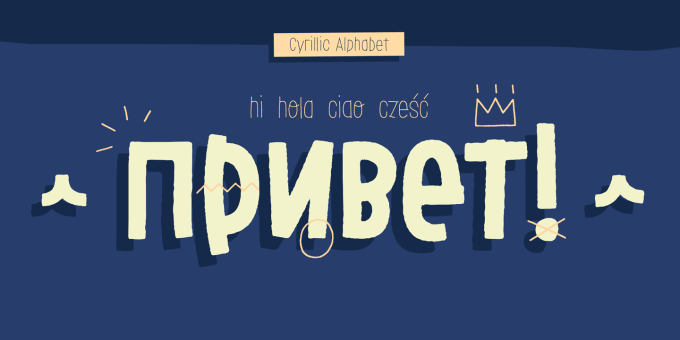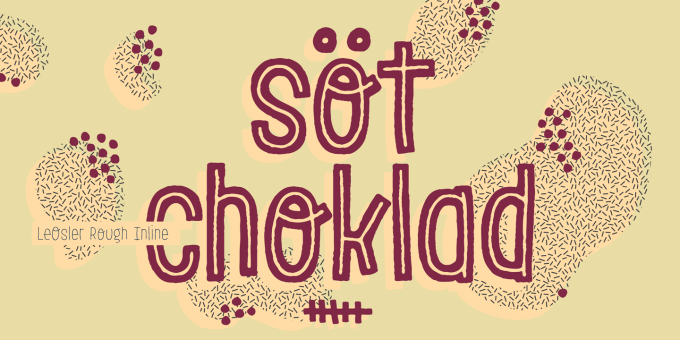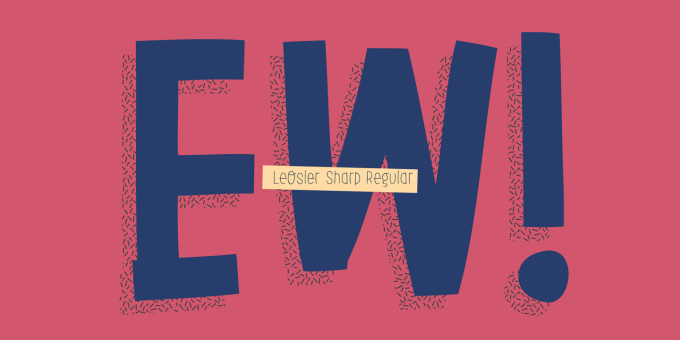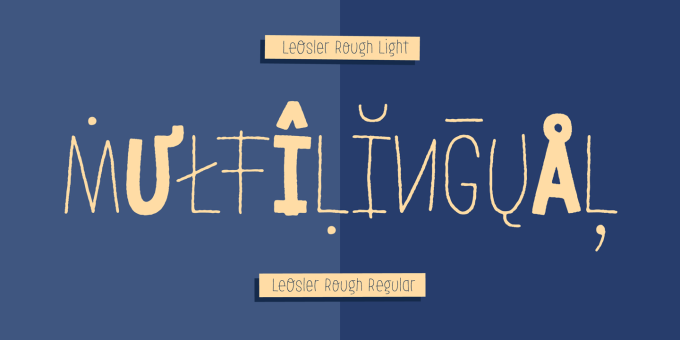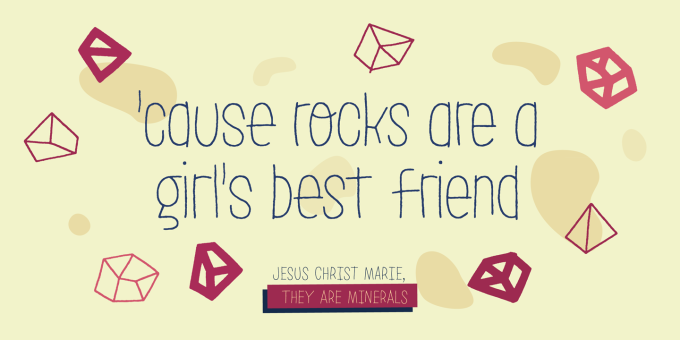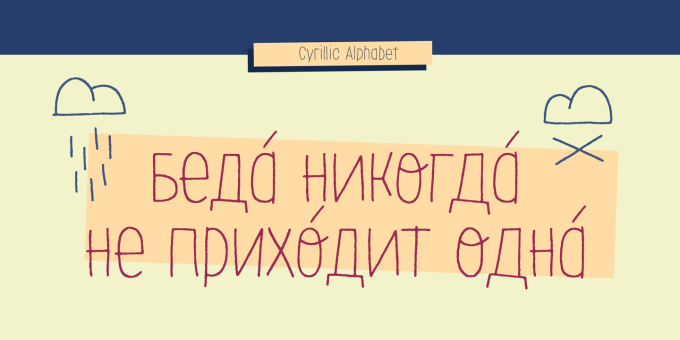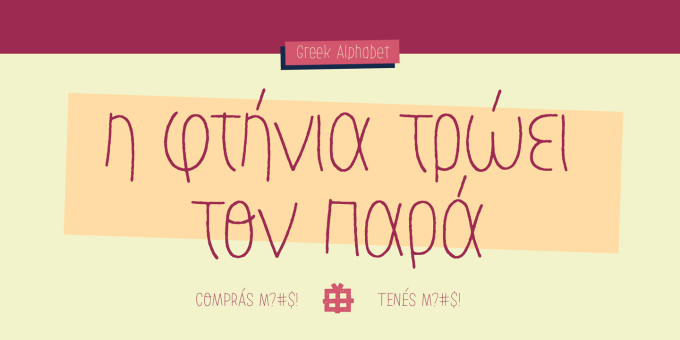
LeOsler
LeOsler is a decorative, fun, handwritten font that includes the Latin, Greek and Cyrillic alphabets, and can be used in a wide range of languages, including English, Spanish, Italian, French, German, Polish, Czech, Vietnamese, Russian, Greek, among many others.
Its OpenType features include ligatures for all repeated characters in upper & lowercase, contextual alternates for all supported alphabets, 4 ampersand alternates, scientific superior/inferior figures, fractions, etc.
LeOsler also offers a set of icons that will provide a much more personal look to your work! Available in Regular and Light weights, and Rough and Stamp styles, for a perfect match with the font styles.